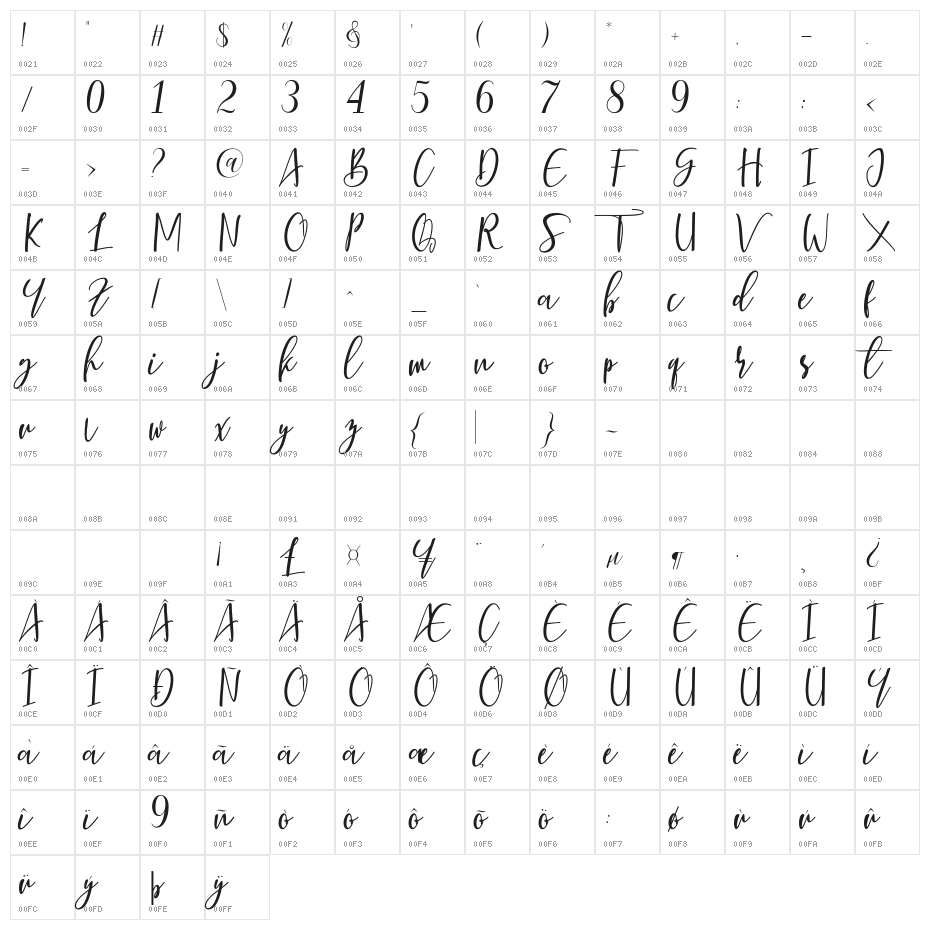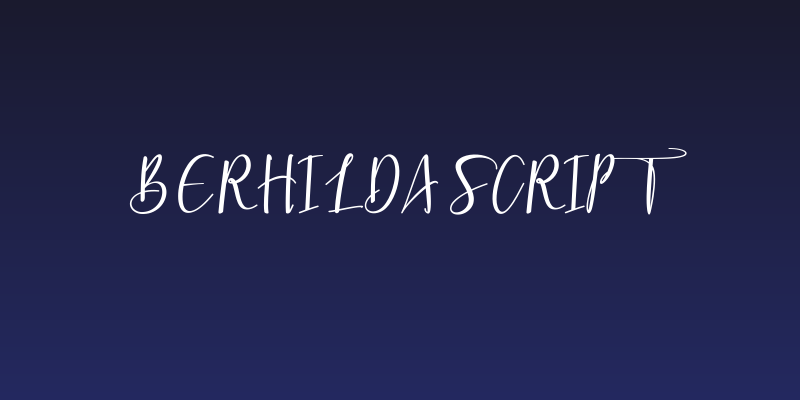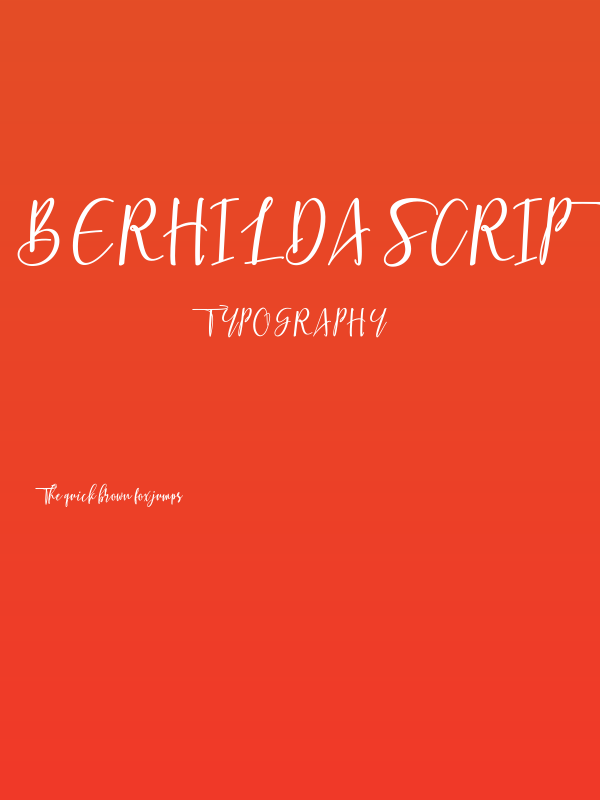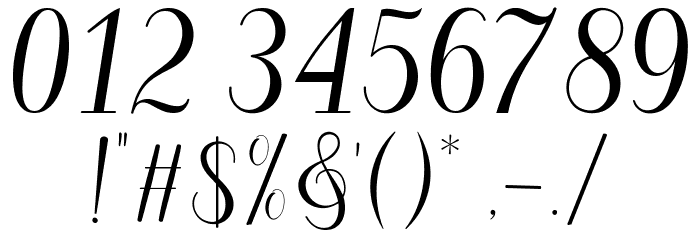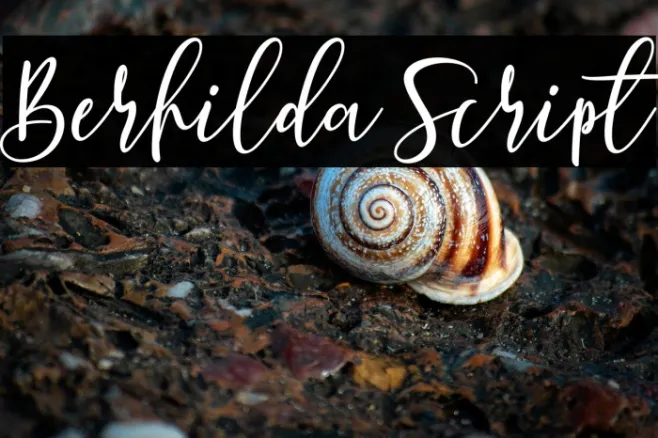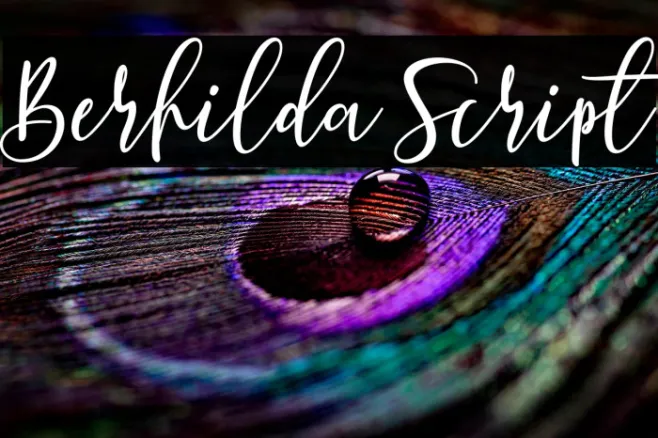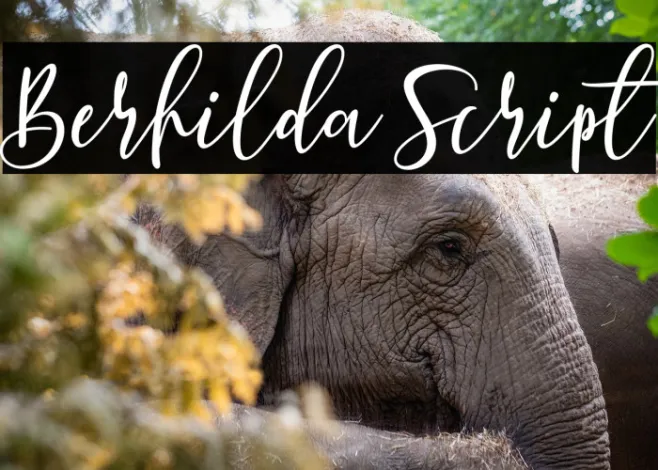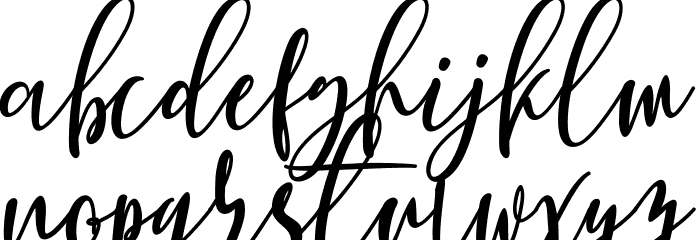
Berhilda Script Font
Berhilda Script Description
This font features a flowing, elegant script style that combines both uppercase and lowercase letters with a sense of fluidity and grace. The uppercase letters are tall and slender, with a slight slant that adds a dynamic feel. The lowercase letters are more rounded and connected, creating a cohesive and harmonious appearance. The numerals are consistent with the overall style, maintaining the same elegant curves. The special characters are designed to match the script's aesthetic, ensuring a seamless integration with text. This font exudes a sense of sophistication and charm, making it ideal for projects that require a personal touch.
| Proposed Projects | Ideal for wedding invitations, greeting cards, branding, and elegant packaging. |